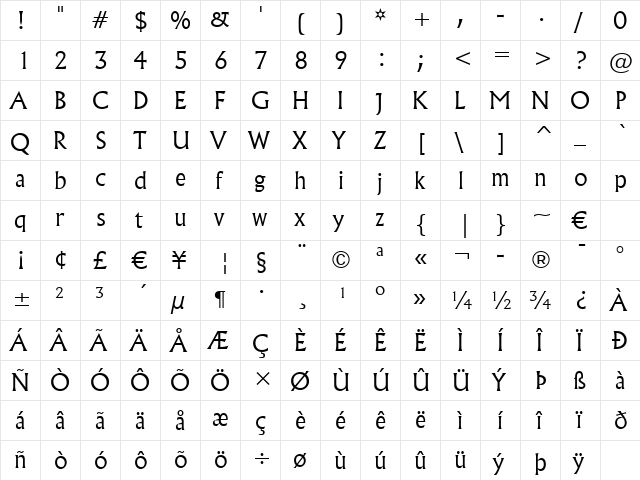
Flareserif821 Lt BT Light Font Preview
Flareserif821 Lt BT Light
Design Context for Flareserif821 Lt BT Typeface
Flareserif821 Lt BT brings classic typographic sensibility to the table — its serifs and measured letterforms reflect centuries of print heritage. Its slender proportions lend an understated elegance to any composition.
Pro Tip: Set Flareserif821 Lt BT at slightly larger body copy sizes than you would a regular-weight serif to compensate for its delicate stroke contrast.